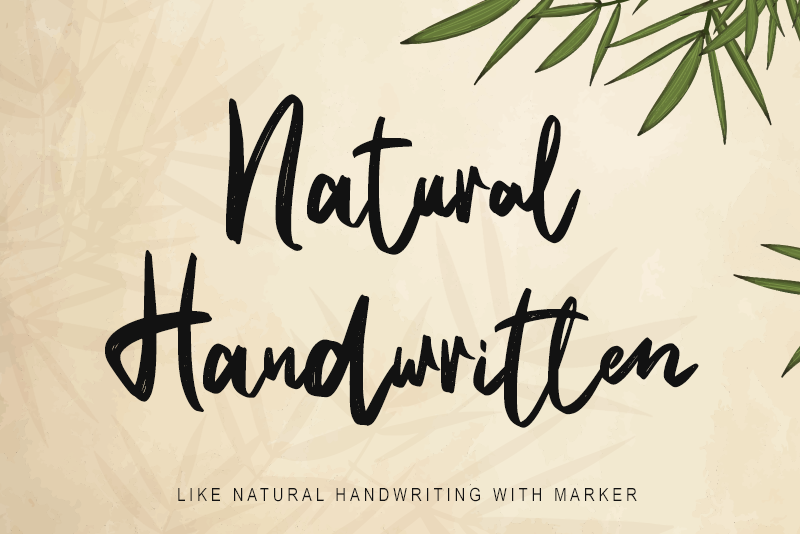
Natural Handwritten
Seeking a elegant, handwritten font that exudes sophistication and charm? Look no further than our luxurious script font! Characterized by its light yet distinctive strokes, this font features a natural, organic feel that adds a touch of refinement to any design. Whether you're crafting a high-end brand identity, designing a premium product, or creating a stunning visual display, this font's unique flair is sure to leave a lasting impression.
With advanced OpenType features and PUA encoding, you'll have access to a vast array of glyphs, ligatures, and ornaments at your fingertips. This means you can effortlessly create complex typographic designs, from flowing headers to intricate embellishments, without sacrificing legibility or aesthetic appeal.
Perfect for luxury brands, high-end publications, and anyone seeking to elevate their design game with a touch of elegance and sophistication.